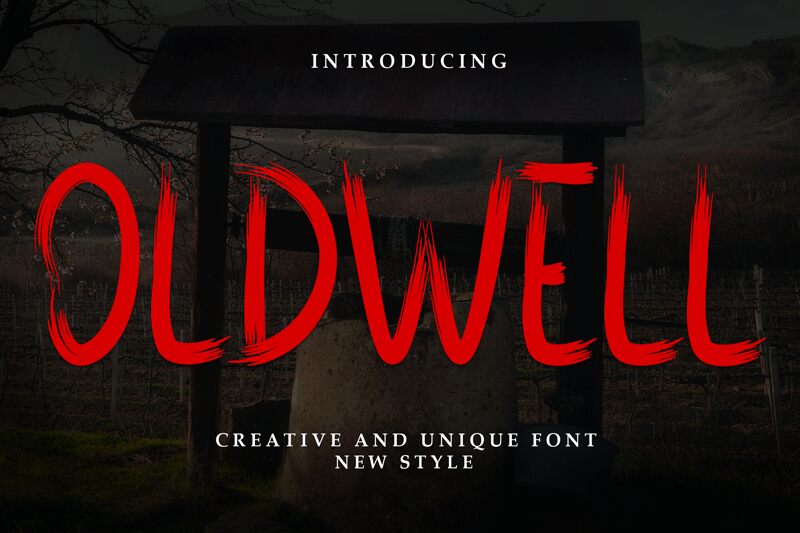
Oldwell
Oldwell font designed by Andi Moz is a condensed display font drawn with a very expressive brush-like attitude. Whether it’s the lines or angles of the individual characters, each detail adds up to a unique font design with an artistic flair and contemporary appeal. Looking slightly scary, this energetic free typeface can be used for personal and professional projects.